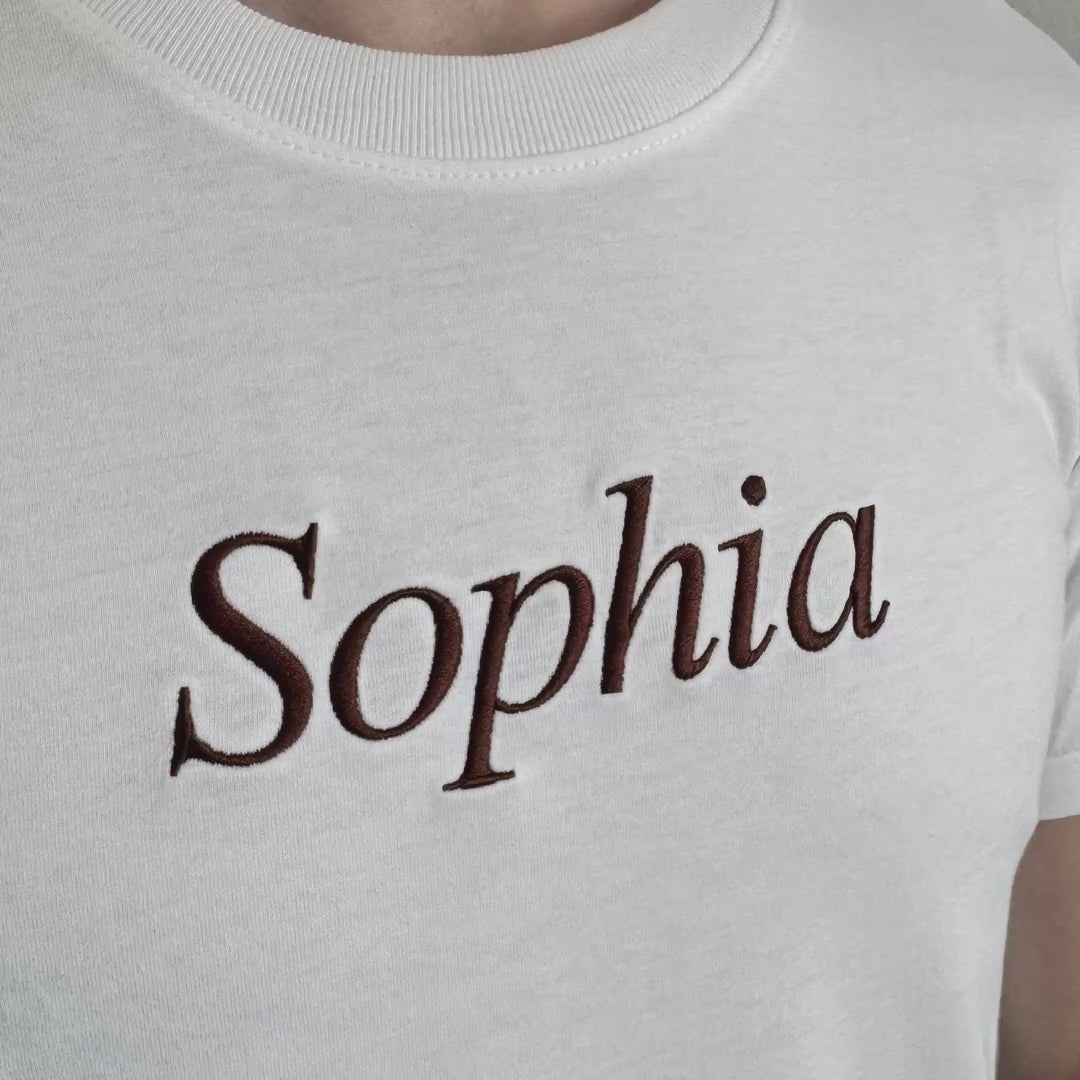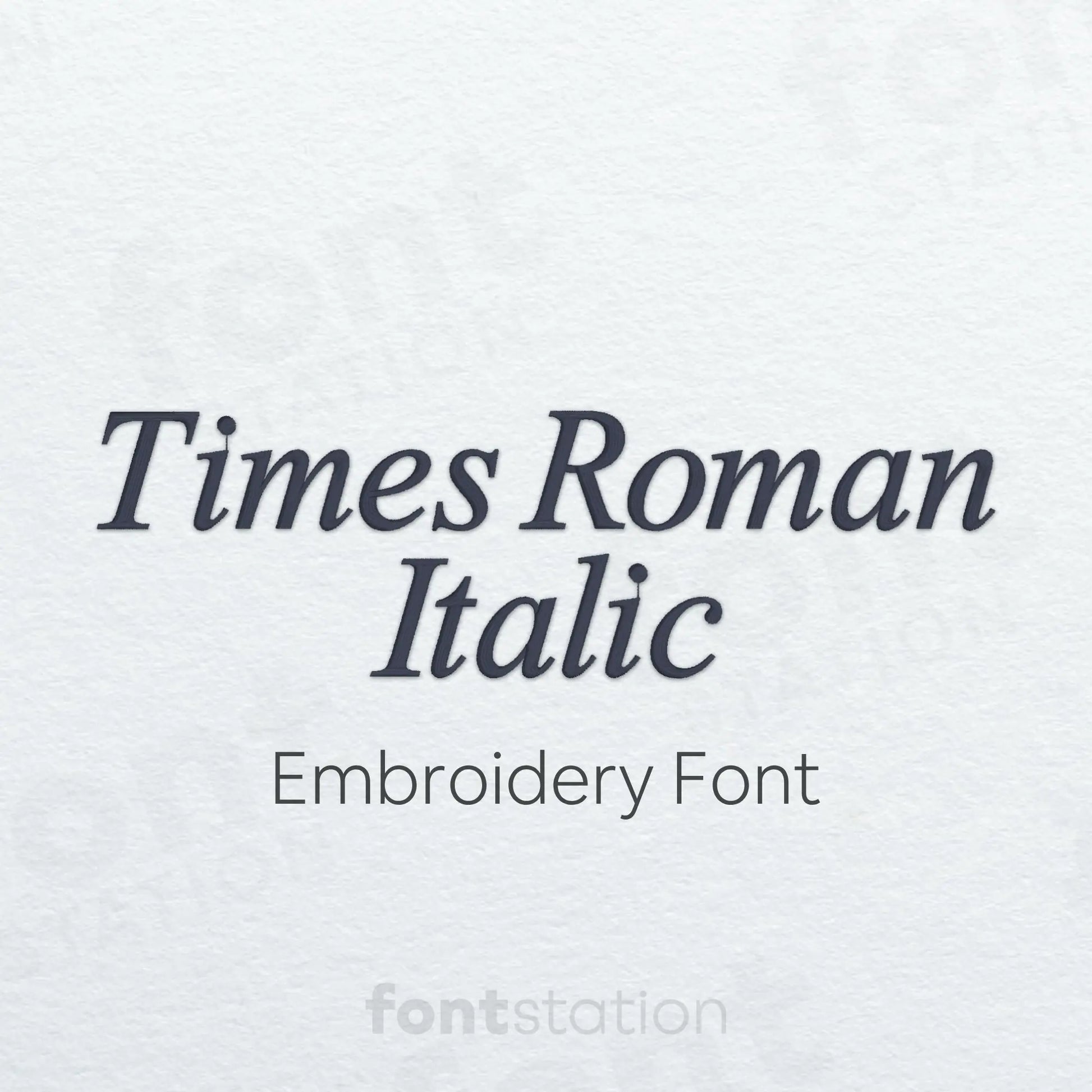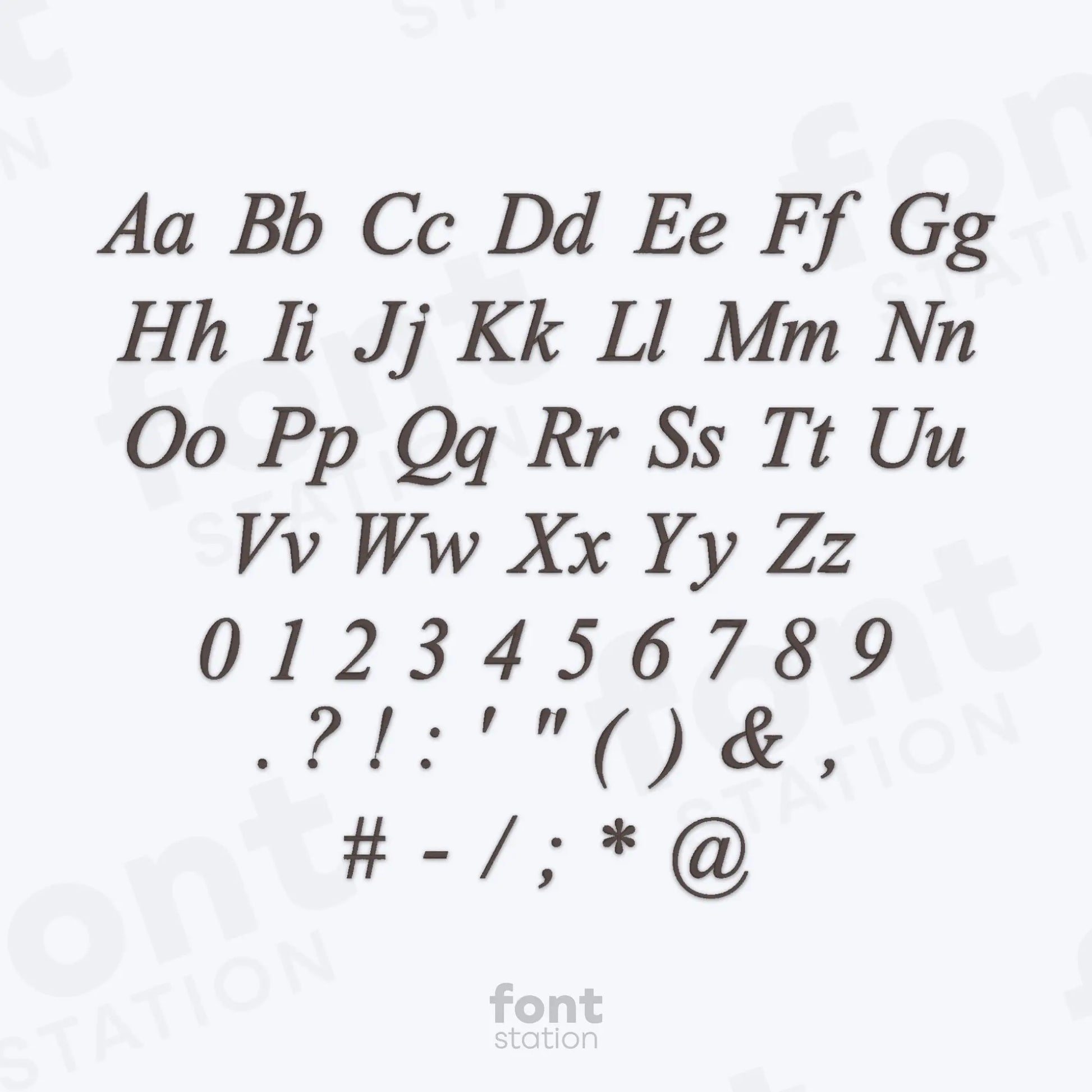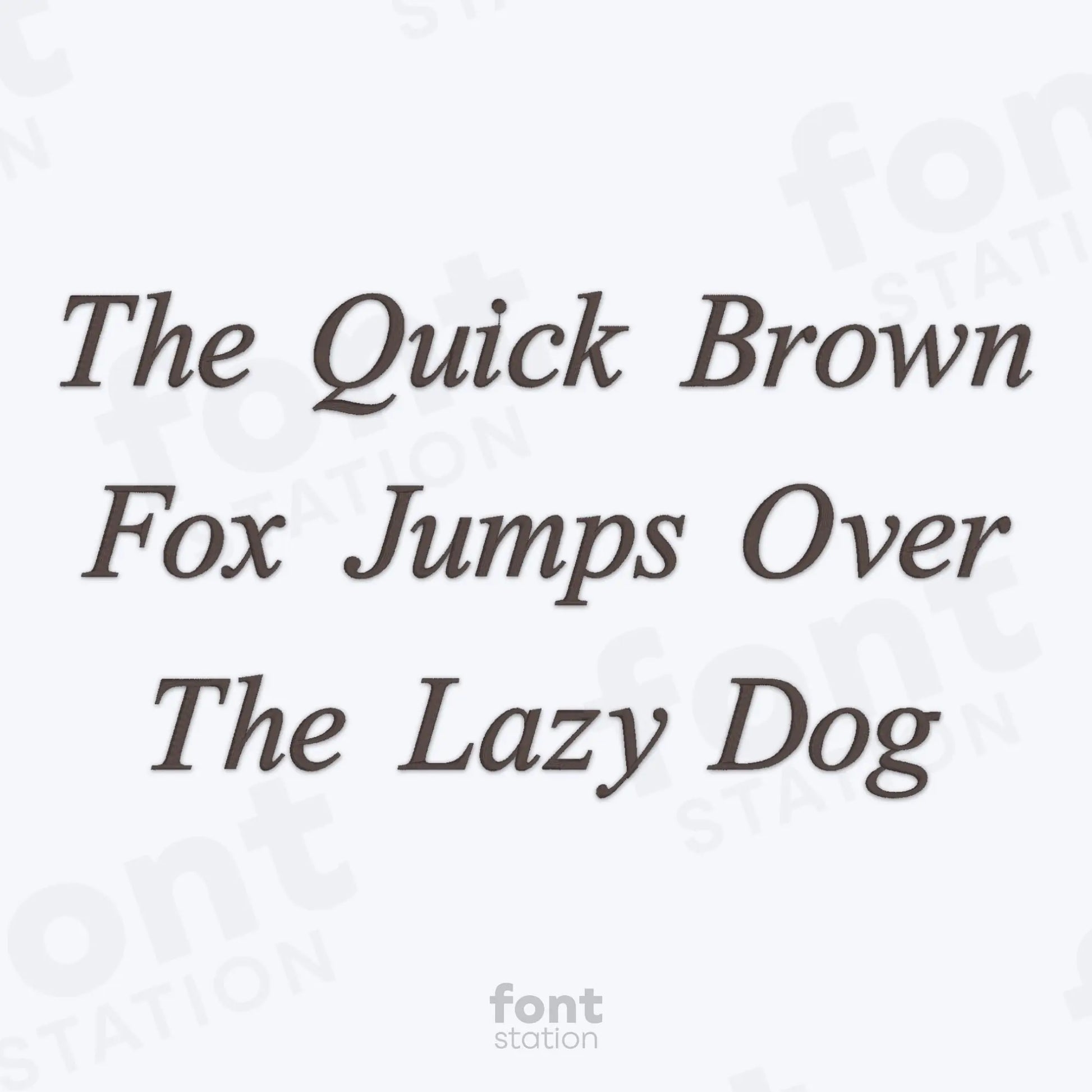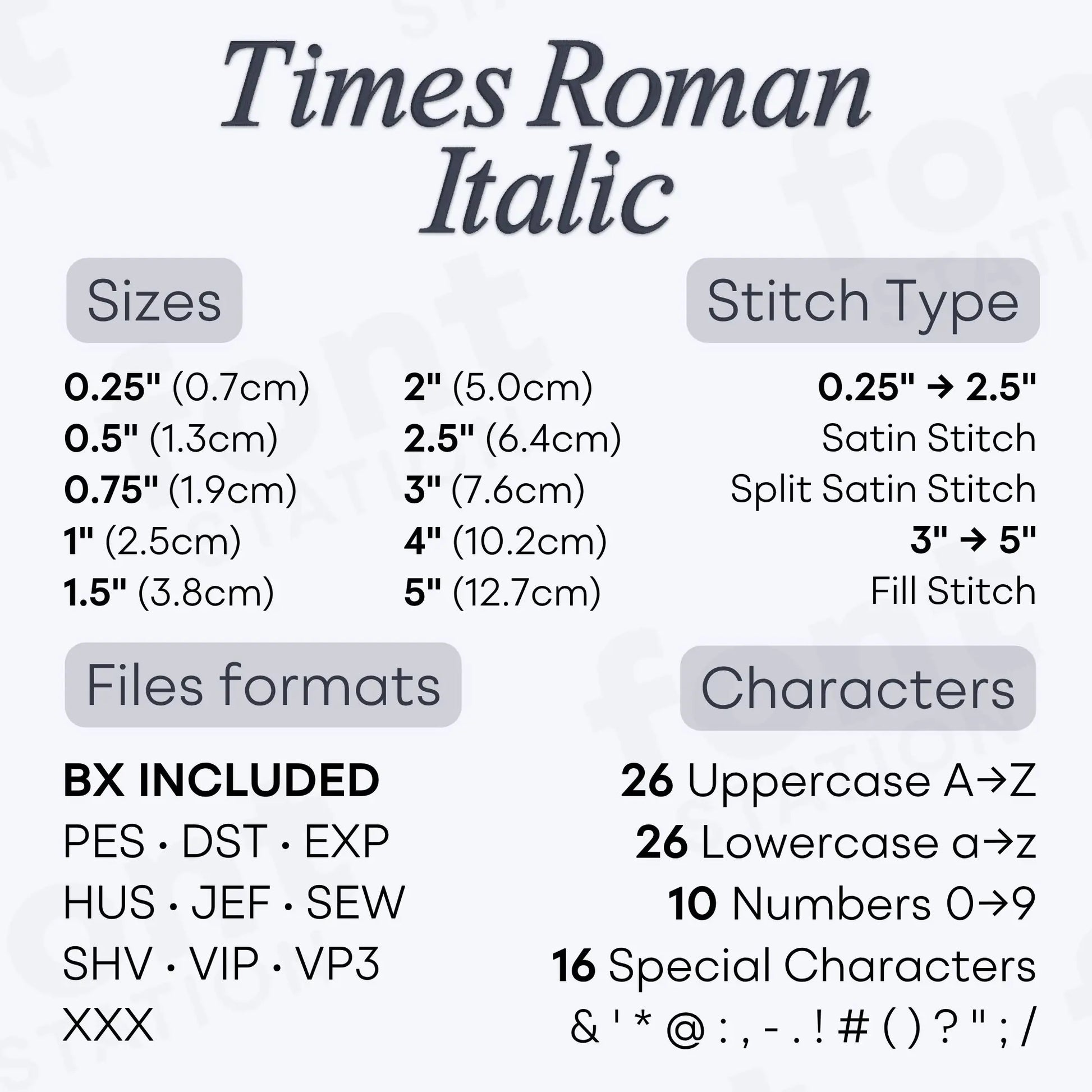
Times Roman Italic Embroidery Font
Introducing our Times Roman Italic embroidery font, an elegant classic serif alphabet with refined letters that stitch beautifully on your embroidery machine. Perfect for timeless designs and any sophisticated project.
About the Times Roman Italic Embroidery Font
Characters: 26 uppercase, 26 lowercase, 10 numbers y symbols & ' * @ : , - . ! # ( ) ? " ; /
Our Times Roman Italic embroidery font brings an elegant, classic serif style to your embroidery projects.
This refined machine embroidery font features a graceful italic serif alphabet with timeless, slanted letters perfect for monograms, quotes, formal names, wedding details, and sophisticated embroidery designs. Its classic look adds readability, elegance, and traditional charm to every project.